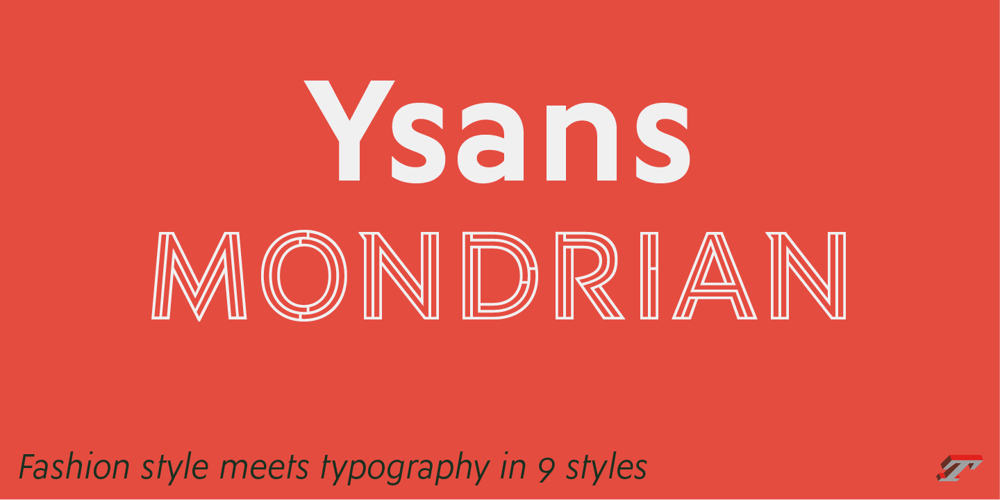
Ysans Std Font Family was designed by Jean François Porchez and published by Typofonderie. Ysans Std contains 9 styles and family package options. Fashion style meets typography in 9 stylesThe Ysans designed by Jean François Porchez is a sanserif influenced by Cassandre lettering pieces and the geometric sanserif style from the inter-war period. Since Chanel logo, the geometric sanserif style is the favorite typographic thing in fashion. Ysans asserts this reference. Not only Haute-Couture houses use these categories of typefaces for their visual identity, but fashion magazines usually strength their layout with these geometric sanserif when a Didot isn’t used.Details of Ysans drawingsNevertheless, Ysans takes its sources in certain details imagined by the graphic designer Adolphe Mouron Cassandre for the monogram then logotype Yves Saint Laurent (1961 …). One thing keeps coming in again and again in Cassandre’s post-war graphic work: the pointed finish and endings, the references to the Roman capitals engraved and unique features such as the open R or other details influenced by Antiqua and calligraphic forms or ductus (you should have in mind that an earlier typeface by Cassandre is the Peignot, a modern uncial based on researches of the palaeographer Jean Mallon.) Certain letters from the Ysans are directly an homage to the Yves Saint Laurent logo, the R, the narrow U, the apex of the N, and all the details of such pointed endings on the f and t lowercases.The Ysans, a typeface between diversity and synthesisThere are several ways to approach the design of a new geometric sanserif. The first approach is to follow the Bauhaus philosophy by designing in the most rational way, typographic forms based on simple geometric elements: square, round, triangle. Another approach is to start a revival based on an historical geometric typeface and optimize the original ideas, in order to adapt certain details to the contemporary needs. For Ysans, the approach is somewhat different because this project started in 2011 at ZeCraft as a typeface designed specifically for Yves Saint Laurent Beauty, still in use by the brand under its original name Singulier. The Singulier-Ysans has been conceptualized by ZeCraft, both drawing its sources from Cassandre and various historical geometric typefaces. Some will spot specific traits as in Futura, others in Metro or Kabel. By closely observing the Ysans, the result can also recall the way Eric Gill draw the curves and endings of his typefaces, of which Jean François Porchez is a fervent admirer. In the end, Ysans is like fashion as envisioned by Yves Saint Laurent who constantly revealed multiple references in his new collections, without being recognisable any other than with his unique style. “Fashions pass, style is eternal. Fashion is futile, not style.”Cherry on the cake: Ysans Mondrian, named in reference to the Mondrian dress created by Yves Saint Laurent, is the multi-layer version of the family.Ysans, fashion style meets typographyClub des directeurs artistiques, 49e palmarès